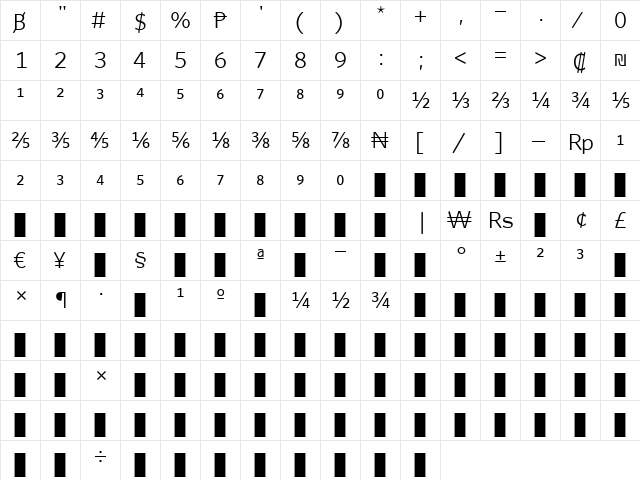
WhitneyNumeric Medium
Design Context for WhitneyNumeric Typeface
WhitneyNumeric offers clean, dependable letterforms without strong stylistic allegiance, making it a practical choice for designers who need flexibility.